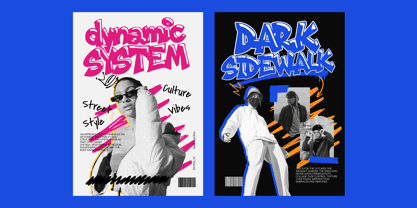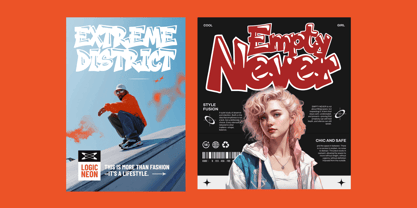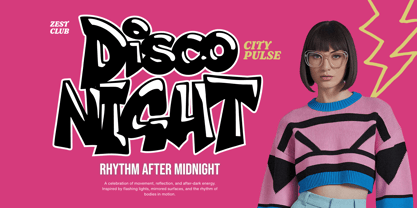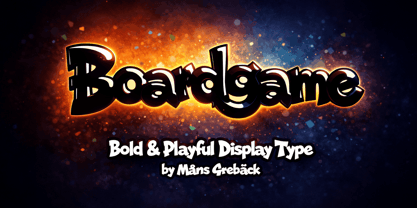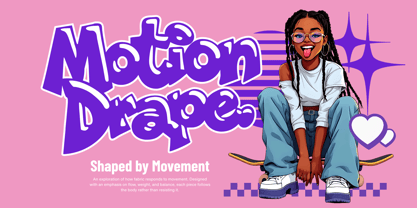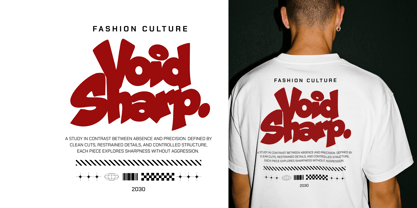
Boardgame
Boardgame is a bold and playful display typeface with a strong, friendly presence and a clear sense of fun. The letterforms are chunky and optimistic, with an exaggerated weight that makes every word feel lively and approachable. Its shapes lean slightly toward whimsical graffiti, working well for expressive headlines and youthful lettering. The font family is built to stack, allowing outlines, shadows, highlights and shine styles to combine into rich, layered compositions with depth and contrast. The font is built with advanced functionality and guaranteed top-notch quality, containing stylistic and contextual alternates, ligatures and more automatic and manual features; all to give you full control and customizability. It has extensive lingual support, covering all Latin-based languages, from North Europa to South Africa, from America to South-East Asia. It contains all characters and symbols you'll ever need, including all punctuation and numbers. Boardgame is drawn by Mans Greback with an emphasis on character and flexibility. Each style is made to work both on its own and together with the others, encouraging experimentation and playful layering. The design focuses on clarity and expression, letting the font adapt to different moods while keeping its distinctive voice.